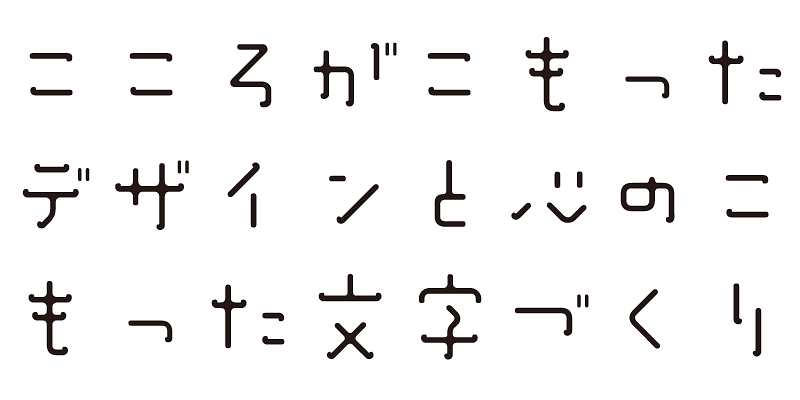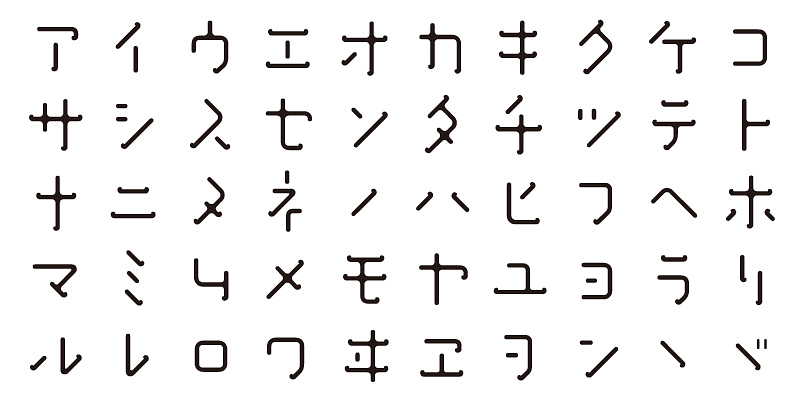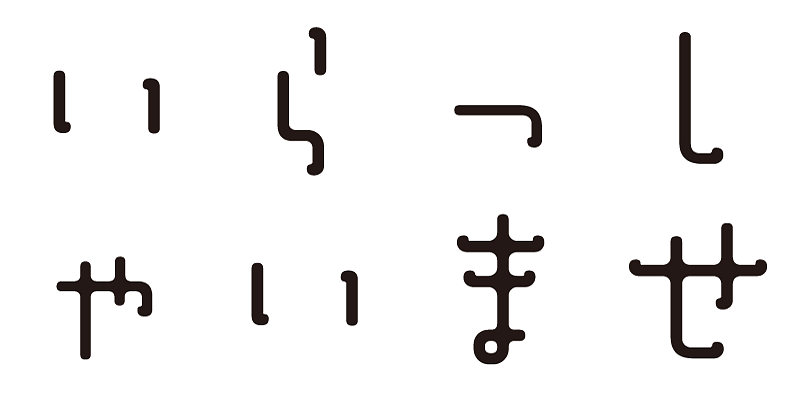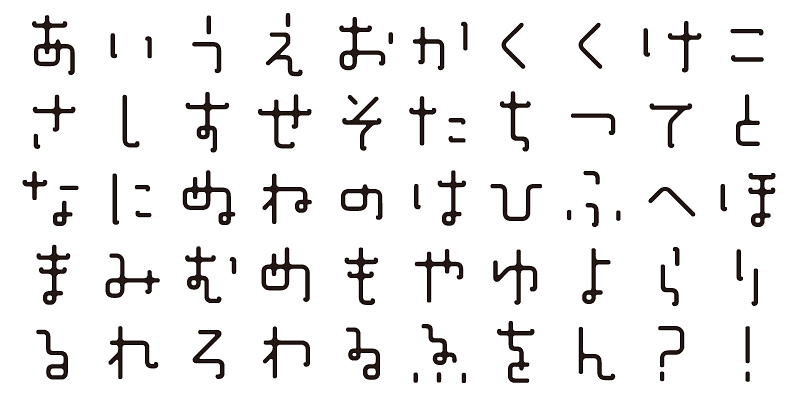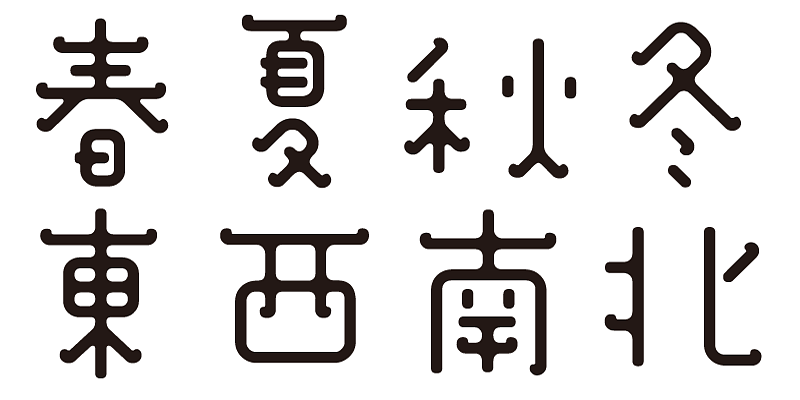
This typeface evokes the feeling of being embarrassed, as a teenager still a year away from becoming an adult, when someone says “Happy Birthday!”
Each font in this typeface family includes 1,000 kanji characters, as well as hiragana, katakana, alphanumeric characters, and punctuation marks.
We design typefaces with the hope that they will add underlying meaning to words expressed. We wish the user to feel good and experience comfort and joy when using these typefaces.